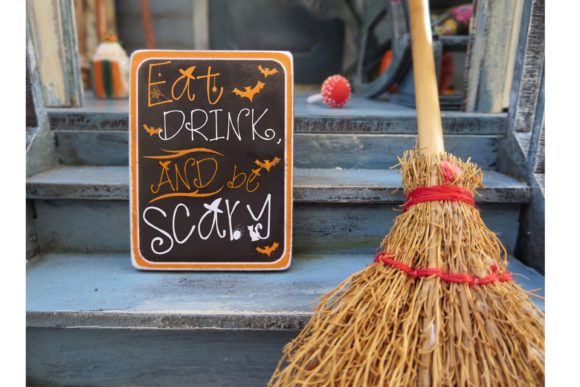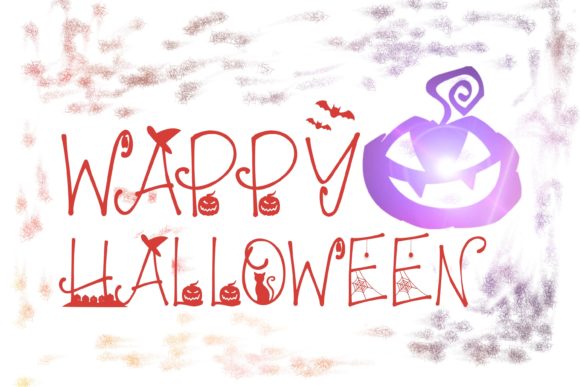
Witch Font
db-ku.com - Script & Handwritten -- Witch is a cute, quirky and gloomy handwritten font. Trendy and stylish, this font will elevate each of your creations. Fall for its charming touch and create outstanding Halloween designs with it.